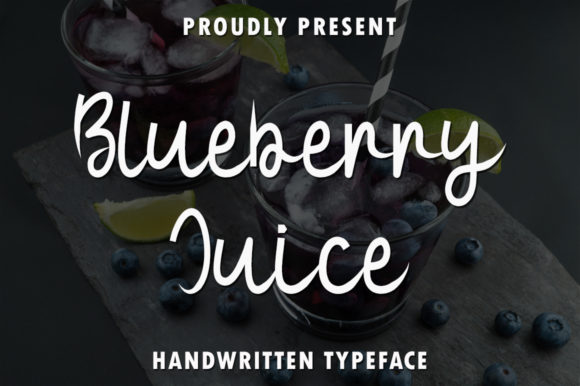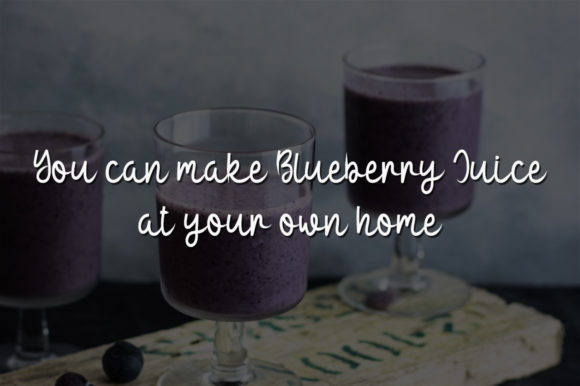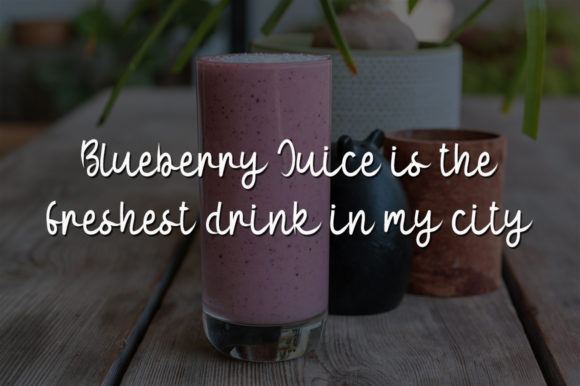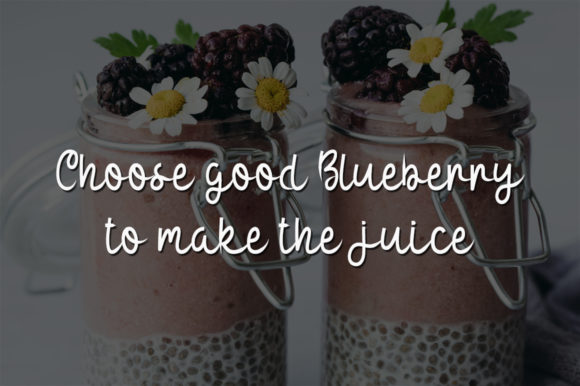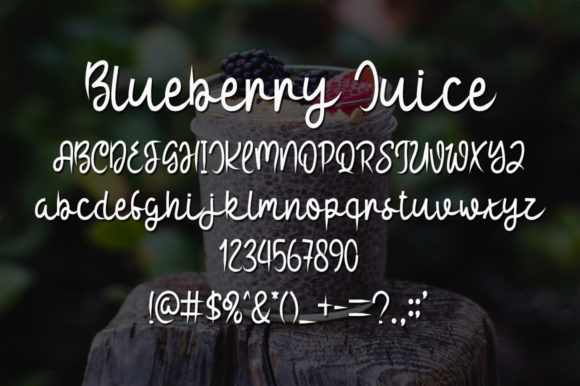
Blueberry Juice Font
About Blueberry Juice Font
Blueberry Juice is a sweet and dainty handwritten font. Its distinct and well rounded letters make this font a masterpiece. Fall in love with its incredibly versatile style and use it to create spectacular designs!